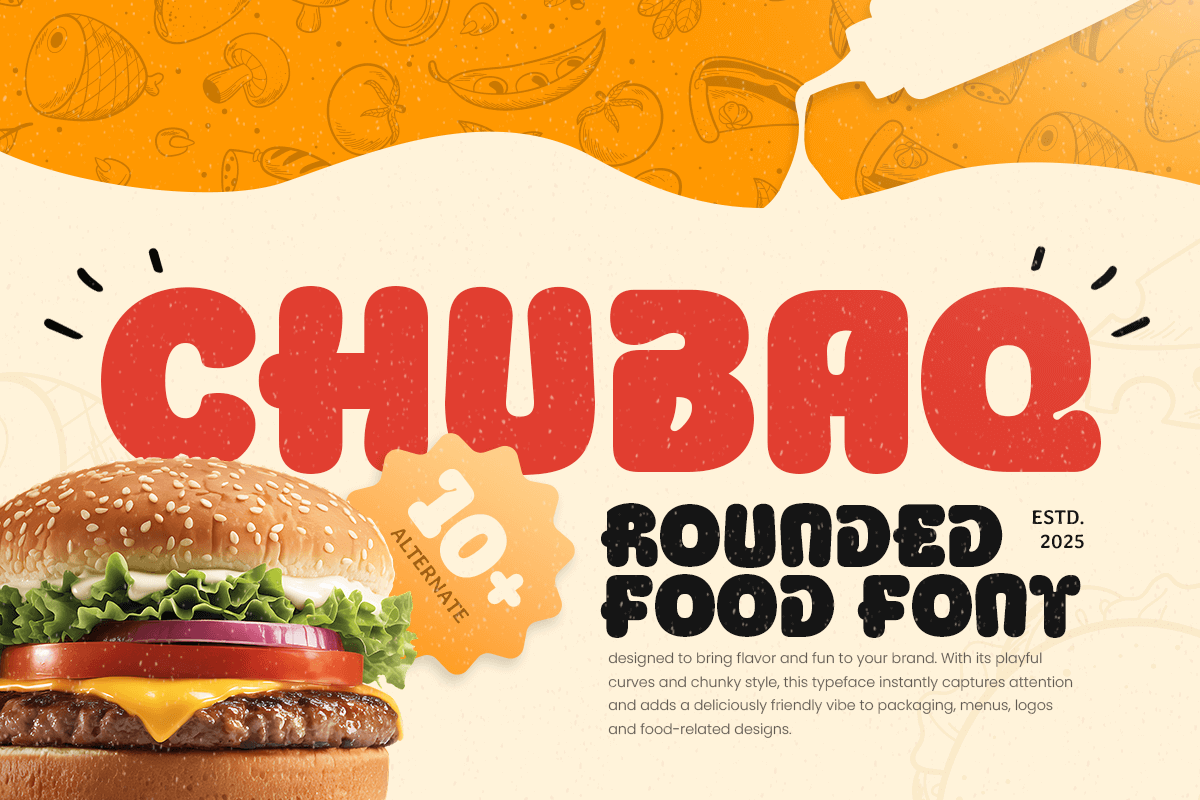
Chubaq
-Rounded Food FontChubaq - Rounded Food Font
CHUBAQ is a rounded food font designed to bring delicious charm and friendly energy to your creative projects. With its smooth curves and plump, appetizing shapes, this typeface is ideal for food branding, snack packaging, restaurant visuals, and fun promotional designs.
Crafted to feel warm and approachable, CHUBAQ delivers a bold yet soft aesthetic that works beautifully for menus, posters, kids’ items, product labels, and cheerful social media content. Its rounded construction makes every letter look tasty, inviting, and visually delightful — perfect for designs that need personality and flavor.
Whether you're building a food brand identity, designing playful advertising, or creating colorful packaging, CHUBAQ brings joy, friendliness, and irresistible visual appeal to any layout.
CHUBAQ – Rounded Food Font Features
Smooth bold rounded letterforms for food & playful design
Perfect for restaurants, snack packaging, menus, and fun branding
Friendly shapes with high visual appeal
Great for kids’ products, posters, and social media graphics
OpenType features for design versatility
Make your designs look tasty and cheerful with CHUBAQ – the perfect rounded font for food, fun, and friendly branding. 🍩✨